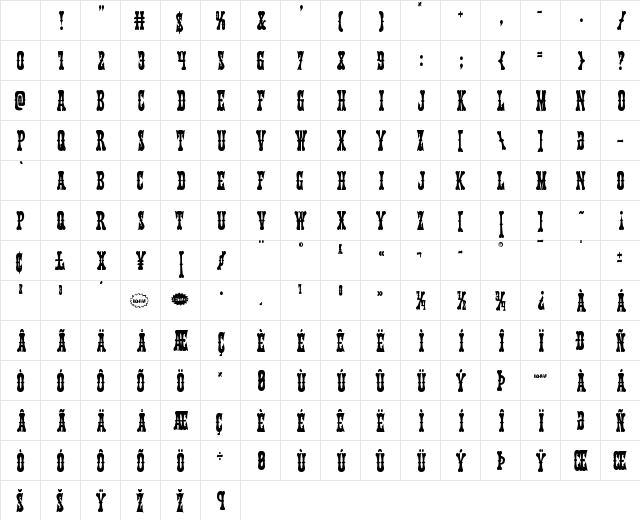
Complete Texas Ranger Condensed glyph index. Displaying only characters natively supported by Texas Ranger Condensed font.
Texas Ranger is a composed and adaptable typeface that performs quietly and consistently across a wide range of design contexts. Its narrow stance lets it pack a punch even in space-constrained designs.